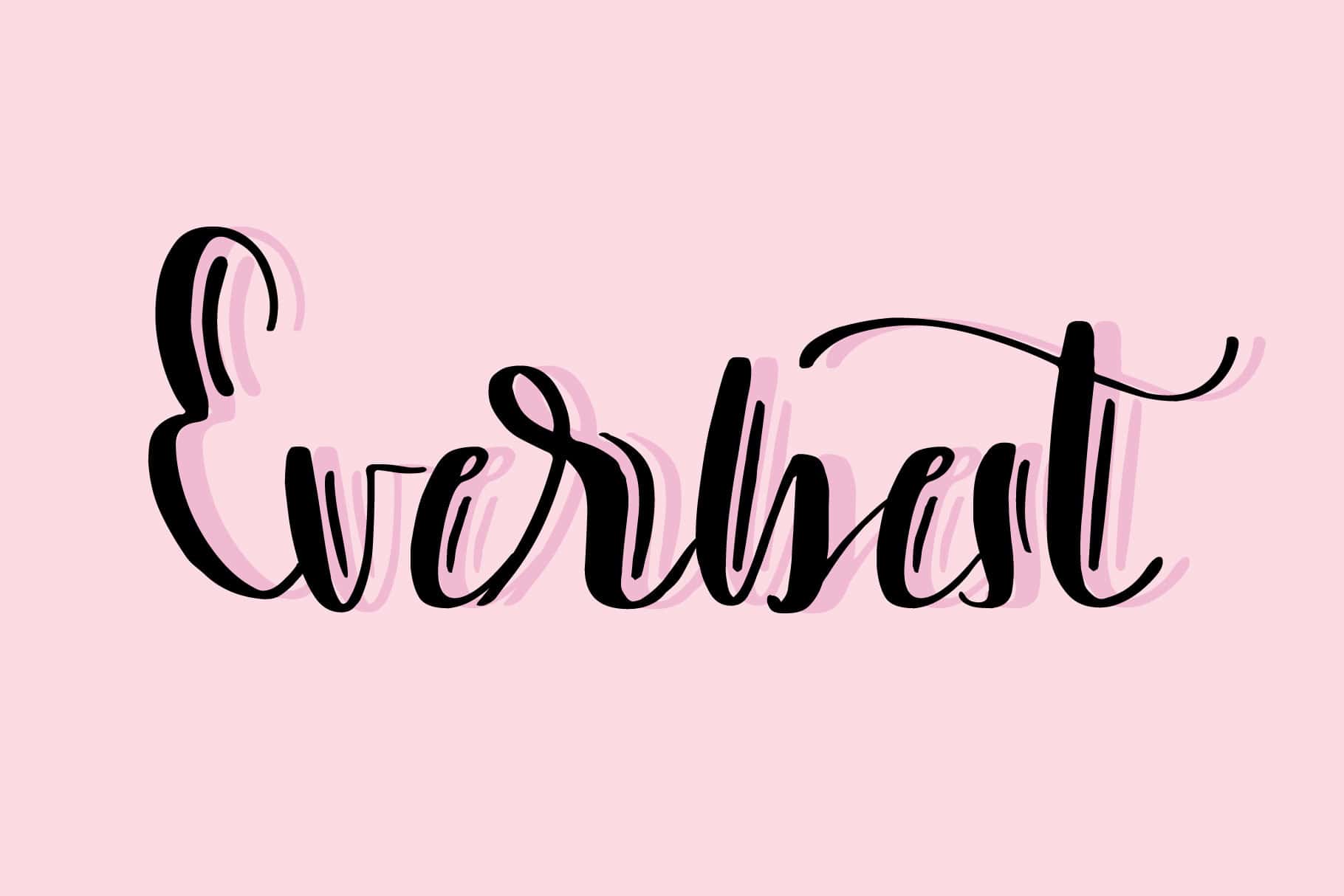
everbest
Experience the Versatility of Everbest Font
Everbest Font, crafted by renowned designer John Smith in 2022, is a stylish modern typeface designed to enhance any graphic project. Its versatility makes it ideal for a variety of applications, including branding, logos, headlines, and web design. With its clean lines and contemporary look, Everbest is perfect for any designer seeking to make a lasting impression.
Key Features and Available Formats of Everbest Font
The Inspiration Behind Everbest Font
Inspired by modern design trends and the need for clarity in typography, Everbest Font encapsulates both elegance and ease of readability. John Smith’s innovative approach to type design prioritizes user experience, making Everbest a go-to choice for graphic designers and businesses looking to enhance their visual identity.
Ideal Applications for Everbest Font
Everbest Font is exceptionally suited for branding projects, logo creation, website design, and promotional materials. Its distinctive character set and flexible design make it an excellent choice for both professional creatives and casual users alike, ensuring your projects stand out with modern flair.